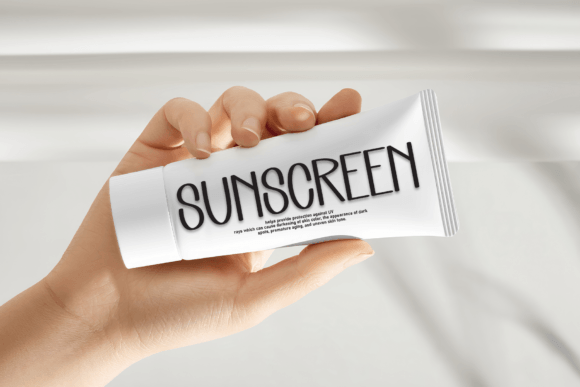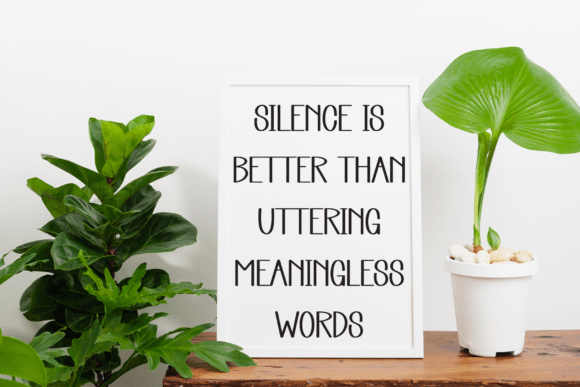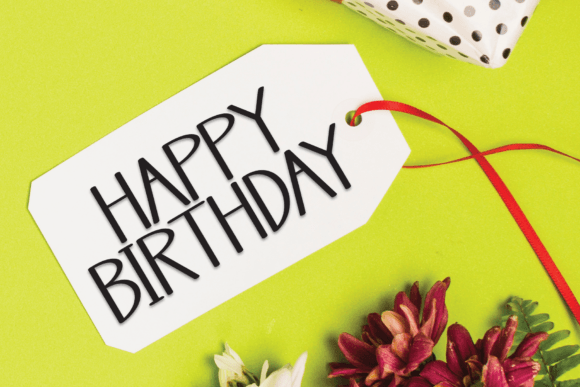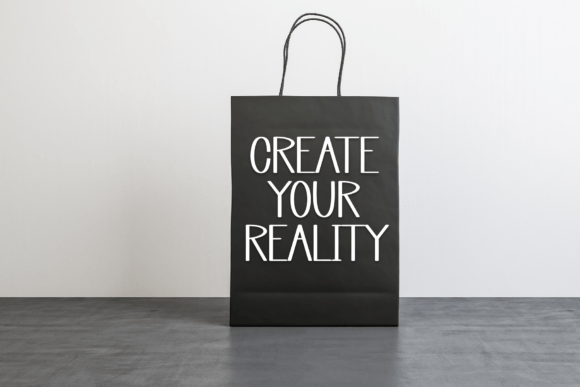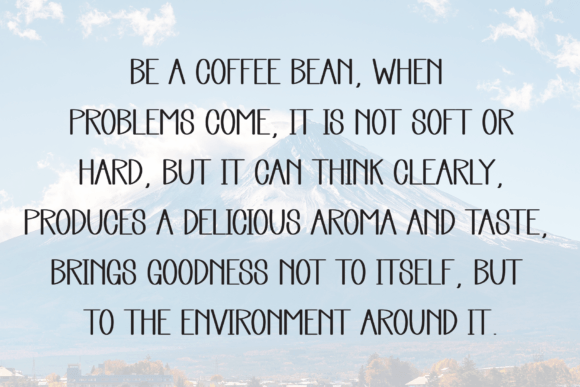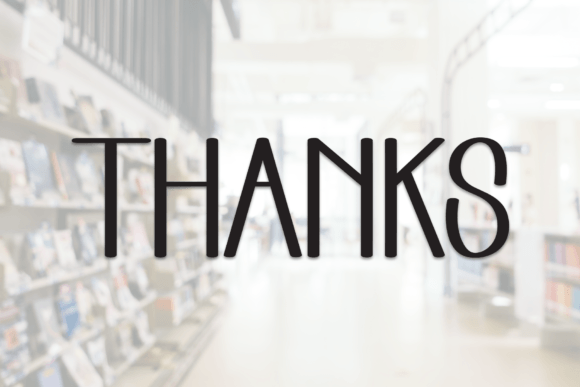
Introduction to Book Store Font
Experience the charm and whimsy of our affectionate, hand-drawn display font, perfectly crafted for accentuating the joyous aspects in your design creations.
Overflowing with warmth and playfulness, this font is a flawless choice to add an enchanting twist to your wedding invites, heartfelt notes, or any other design that stands to benefit from an infusion of joviality Experience the appeal of our sweet and friendly handwritten font and let your designs tell delightful stories.
Book Store Font offers exceptional quality and versatility, making it a valuable addition to your design toolkit. Whether you’re creating for personal projects or commercial use, Book Store Font delivers professional results.